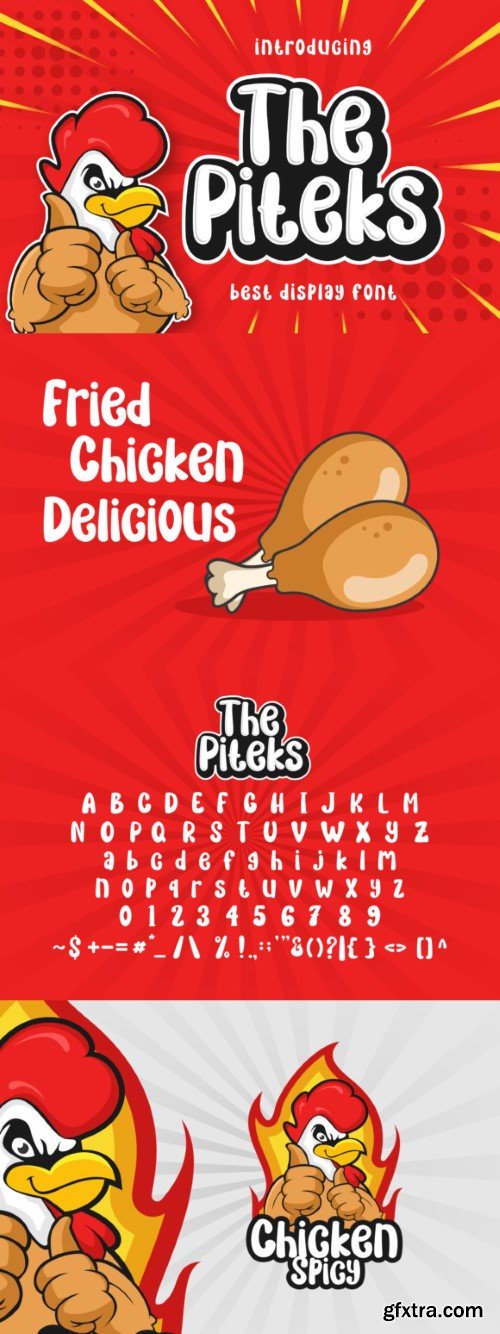
皮特克斯字体
The Piteks is a bold and authentic display font perfect for any branding projects such as logos, T-shirt printing, creative products, and more. Extraordinary in a variety of contexts, The Piteks will make a great addition to your collection!